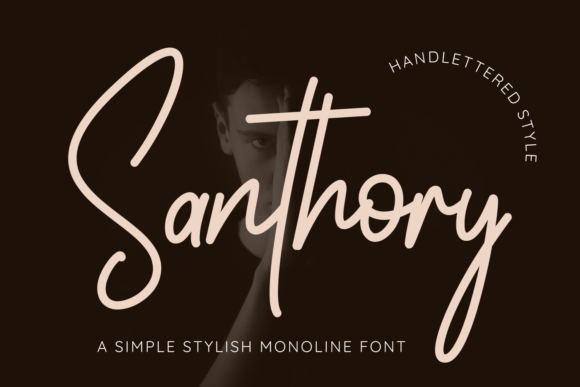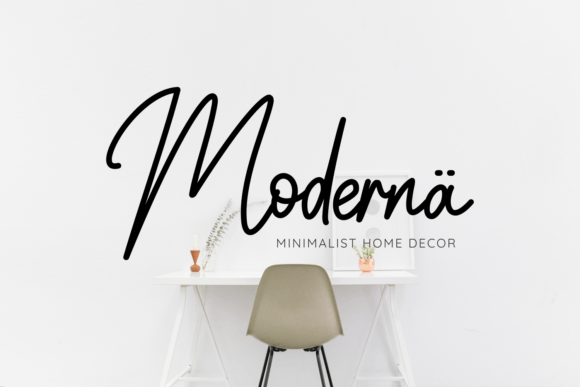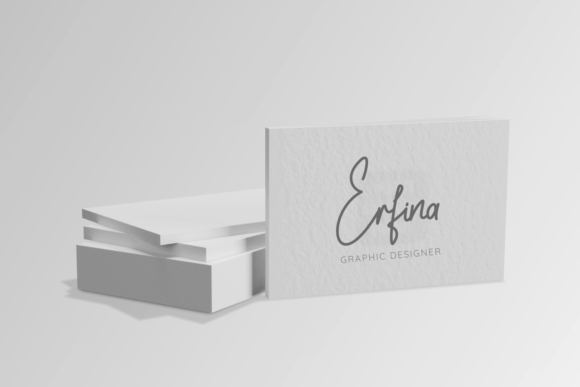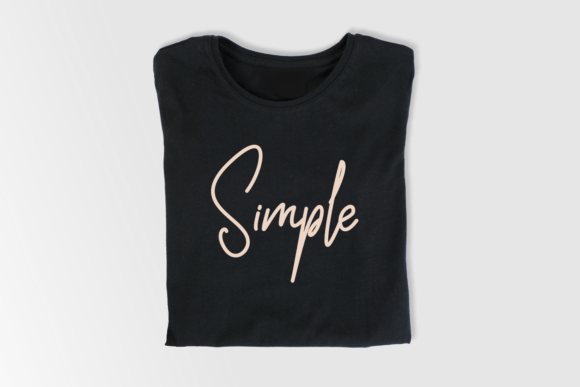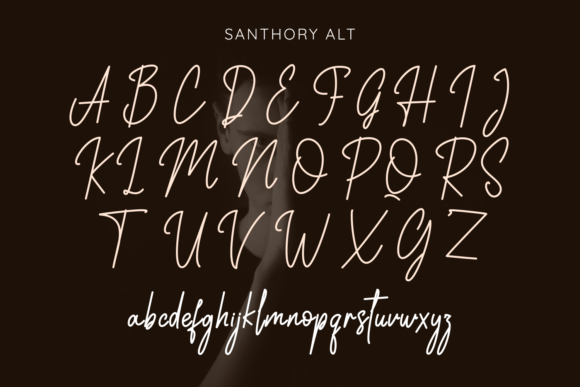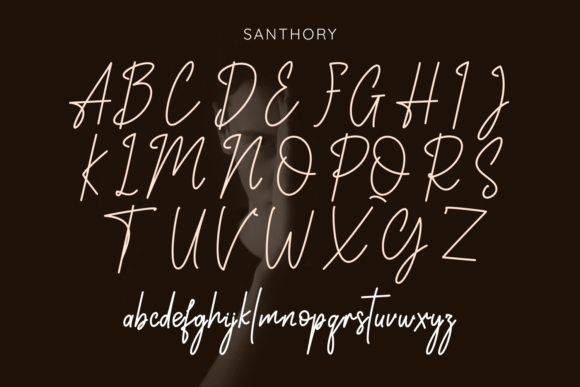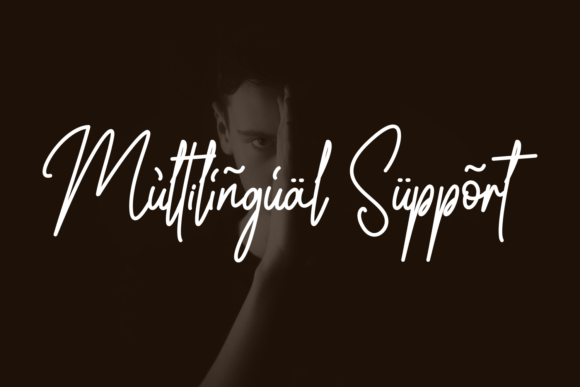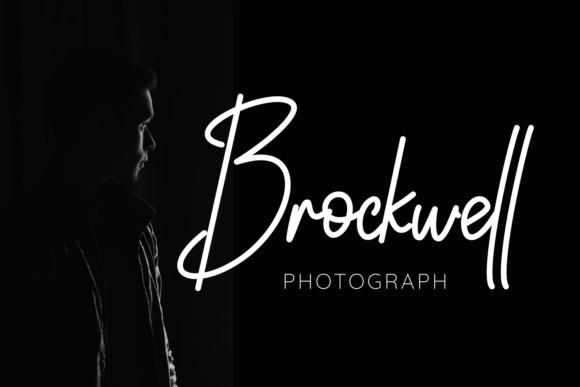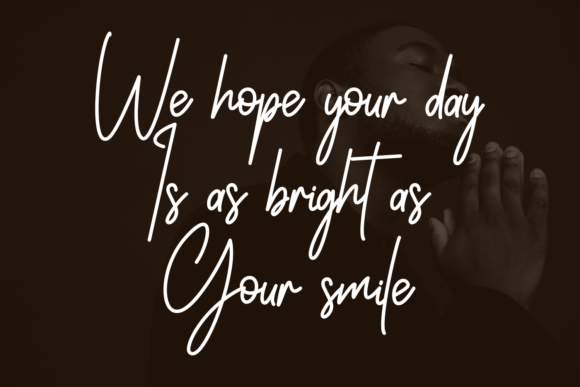
Santhory Font
The Santhory Font download is a stylish and elegant monoline signature typeface created for designers who value sophistication and versatility. With its graceful strokes and well-balanced characters, this font is an excellent choice for projects that require a personal yet professional touch. Whether you are designing a logo, crafting invitations, or building a brand identity, Santhory adds timeless elegance to your work.
Stylish and Elegant Monoline Design
The Santhory Font download features smooth, continuous strokes that capture the essence of modern calligraphy while maintaining clean simplicity. Its monoline structure ensures consistency and balance, making it a favorite for projects where harmony and clarity are essential. The font’s natural handwritten flow creates a signature-like appearance, giving your designs a touch of individuality.
Perfect for Logos and Branding
Typography plays a crucial role in brand identity, and the Santhory Font download is an ideal choice for businesses seeking a stylish yet professional look. Its refined letterforms make it suitable for high-end logos, product packaging, fashion labels, and beauty branding. With Santhory, you can instantly convey elegance and authenticity while maintaining readability across different media.
Versatile Across Creative Projects
One of the greatest strengths of the Santhory Font download is its adaptability. It works beautifully on wedding invitations, social media graphics, advertising materials, and personal stationery. Its balanced characters ensure a polished appearance, whether used in large titles or smaller text elements. Creative professionals and hobbyists alike will appreciate how easily Santhory elevates every project.
A Timeless Signature Appeal
The charm of the Santhory Font download lies in its ability to combine timeless handwriting appeal with modern simplicity. Unlike many signature fonts that may feel overly decorative, Santhory achieves elegance without losing clarity. This balance makes it stand out as a reliable choice for projects that demand both beauty and professionalism.
Why Choose Santhory Font?
With countless signature fonts available, the Santhory Font download distinguishes itself through its refined style and balanced character design. It offers flexibility without sacrificing uniqueness, making it suitable for everything from luxury branding to personal DIY crafts. Choosing Santhory means choosing elegance, creativity, and timeless appeal.
Elevate Your Designs with Santhory
Typography has the power to transform simple ideas into striking visuals. By using the Santhory Font download, you can ensure your designs exude elegance, personality, and sophistication. Whether for business or personal projects, Santhory helps you leave a memorable impression.